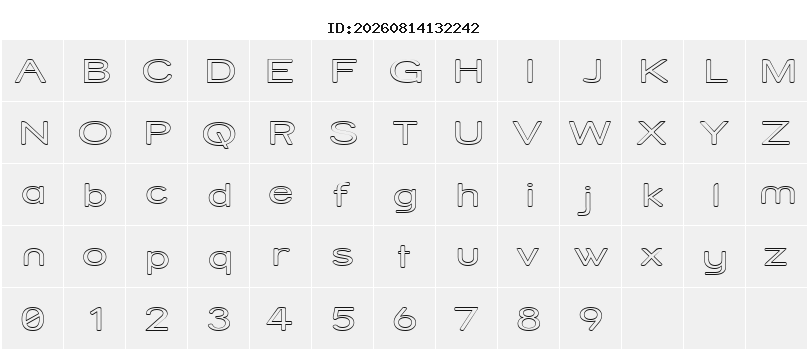
• Font Name: Street Variation - Outline Exp
• Full Font Name: Street Variation - Outline Exp
About Street Variation - Outline Exp.ttf
Street Variation - Outline Exp.ttf is a modern, elegant sans-serif font designed for ultimate readability and visual harmony. Perfect for branding, headlines, web design, and print materials.